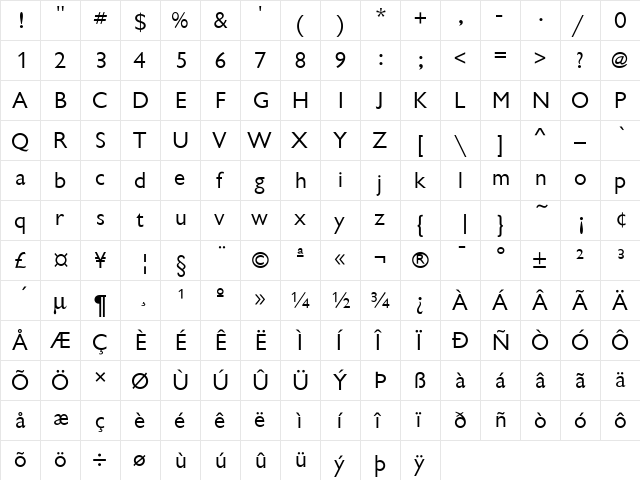
Giltus T Regular
Design Context for Giltus T Typeface
Giltus T takes a measured approach to typography — its balanced proportions and neutral character make it a reliable workhorse for both digital and print work.